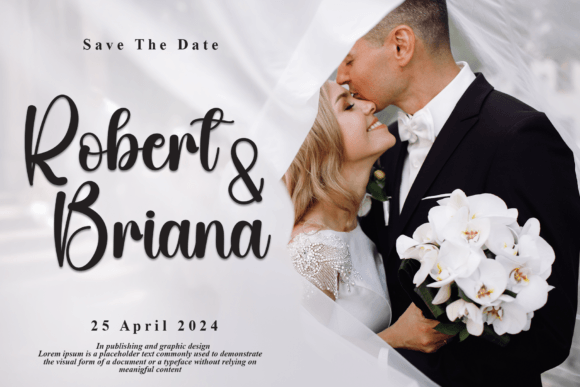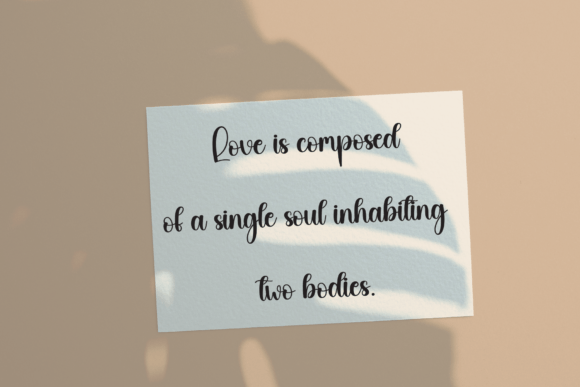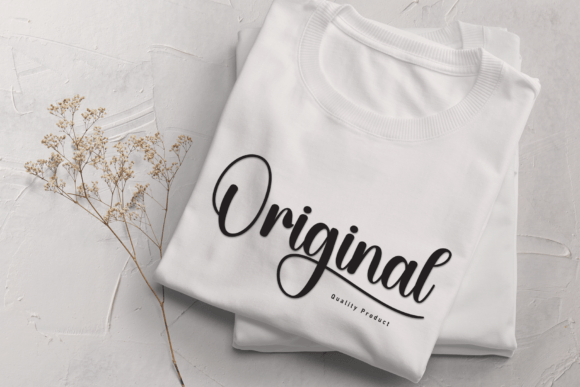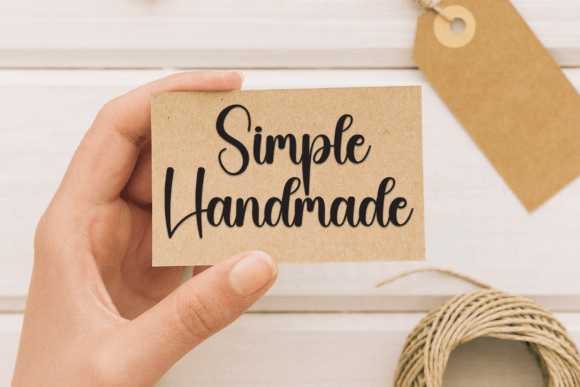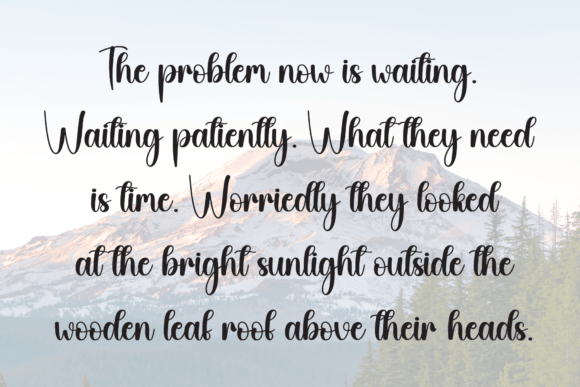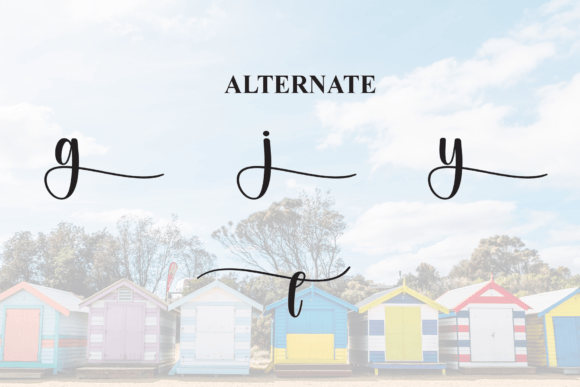
Brighton Font: The Sweet and Delicate Handwritten Font for Romantic Designs
Are you looking for a font that can add a touch of romance and elegance to your designs? Look no further than the Brighton Font! This sweet and delicate handwritten font is perfect for creating beautiful wedding invitations, cards, and other designs that require a personal and loving touch.
What is Brighton Font?
Brighton Font is a type of handwritten font that is characterized by its dainty and joyful appearance. It is designed to mimic the look of handwriting, with each letter and word carefully crafted to create a sense of warmth and personality. The font is highly legible and can be used for a variety of design projects, from wedding invitations and cards to branding and packaging.
Key Features of Brighton Font
- Sweet and delicate appearance: Brighton Font has a charming and feminine look that is perfect for creating romantic designs.
- Handwritten style: The font is designed to mimic the look of handwriting, giving it a personal and unique touch.
- Dainty and joyful: The font’s dainty and joyful appearance makes it perfect for creating designs that require a light and airy feel.
- Highly legible: Despite its delicate appearance, Brighton Font is highly legible and can be used for body text as well as headings.
Uses for Brighton Font
Brighton Font is a versatile font that can be used for a variety of design projects. Here are some of the most popular uses for this beautiful font:
- Wedding invitations: Brighton Font is perfect for creating beautiful and romantic wedding invitations that set the tone for the big day.
- Cards and stationery: The font’s sweet and delicate appearance makes it ideal for creating cards, stationery, and other paper crafts.
- Branding and packaging: Brighton Font can be used to create beautiful and feminine branding and packaging designs that stand out from the crowd.
- Digital designs: The font can be used for digital designs such as social media graphics, blog posts, and email newsletters.
Tips for Using Brighton Font
Here are some tips for using Brighton Font in your designs:
- Pair with complementary fonts: Brighton Font can be paired with other fonts to create a unique and interesting look. Try pairing it with a bold font for headings and a clean font for body text.
- Use for headings and titles: Brighton Font is perfect for creating beautiful headings and titles that add a touch of romance and elegance to your designs.
- Experiment with colors: The font’s delicate appearance makes it perfect for experimenting with different colors and textures. Try using pastel colors or watercolor textures to create a unique look.
In conclusion, Brighton Font is a beautiful and versatile font that is perfect for creating romantic and elegant designs. Its sweet and delicate appearance makes it ideal for wedding invitations, cards, and other designs that require a personal and loving touch. With its highly legible design and versatile uses, Brighton Font is a must-have for designers and crafters looking to add a touch of romance and elegance to their designs.